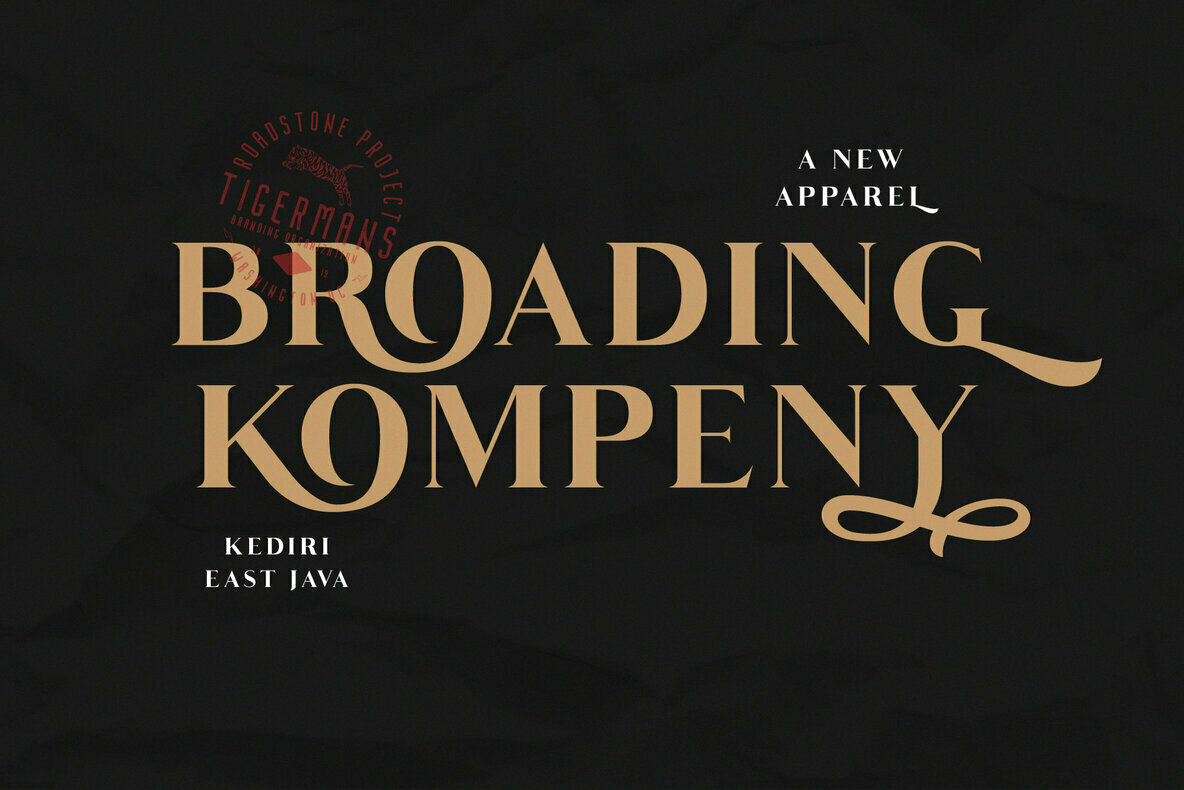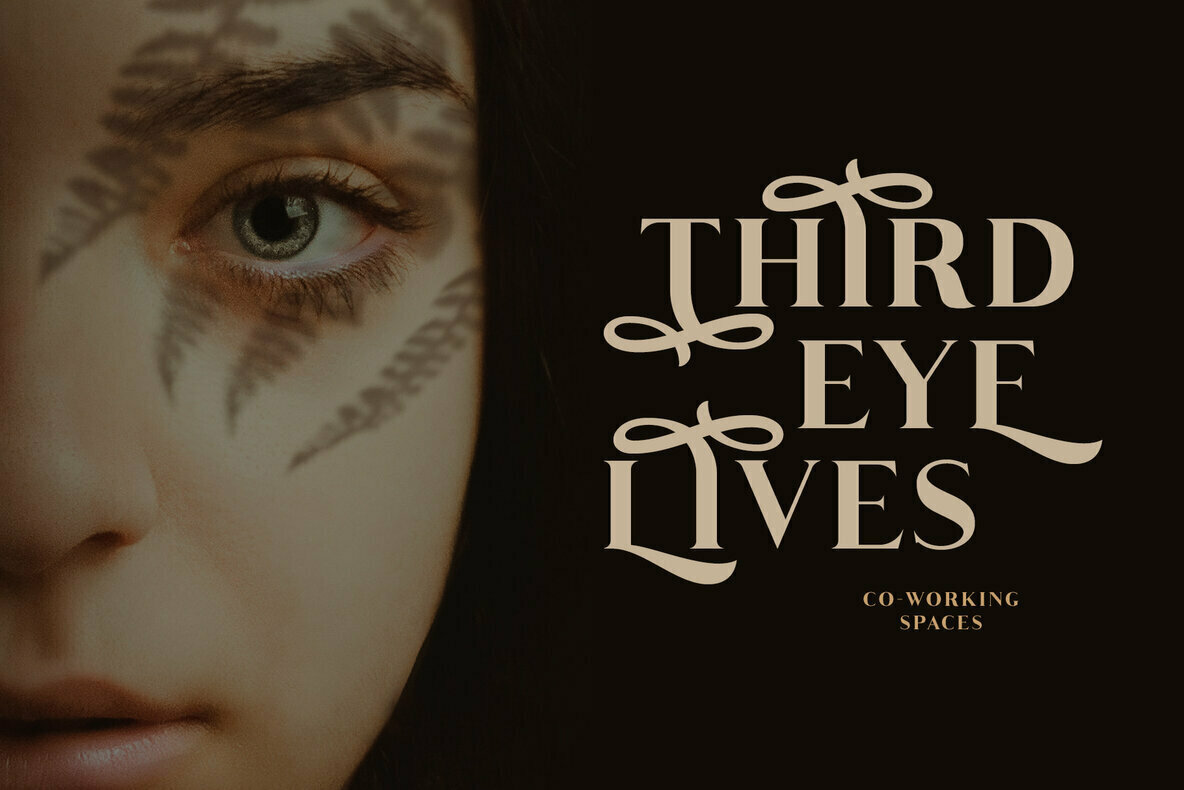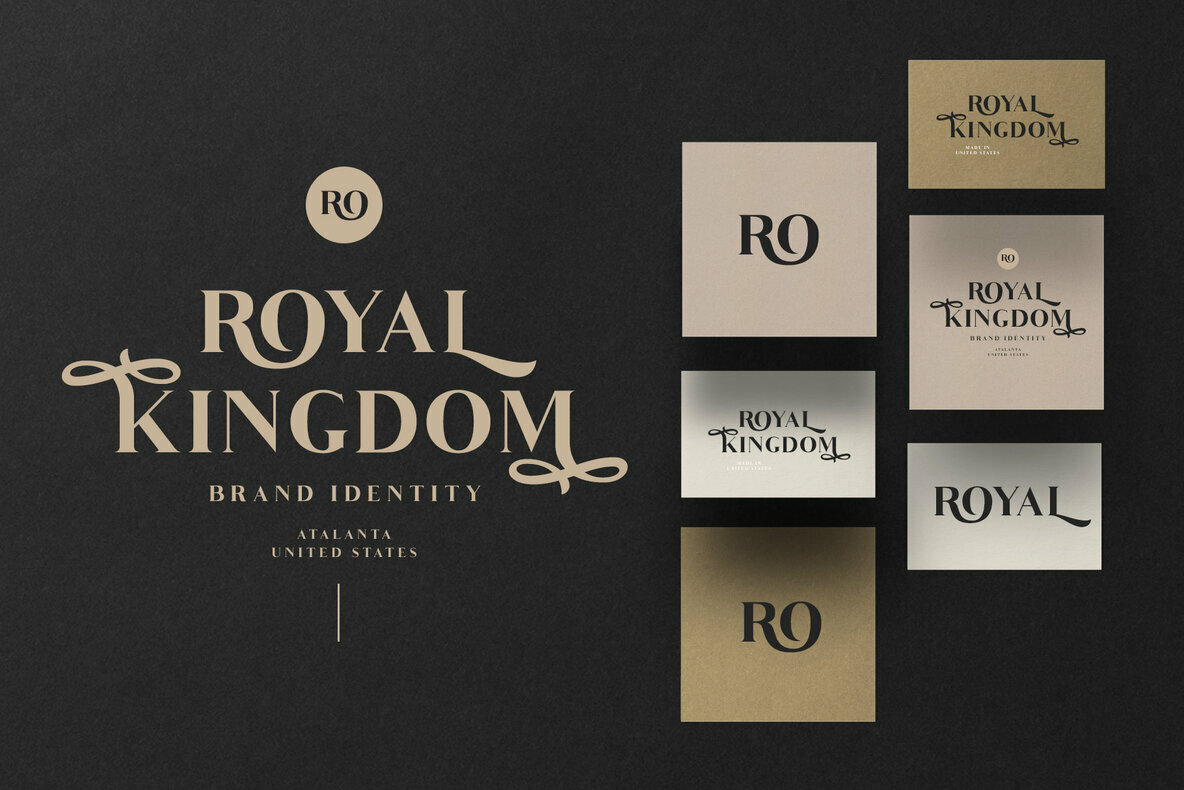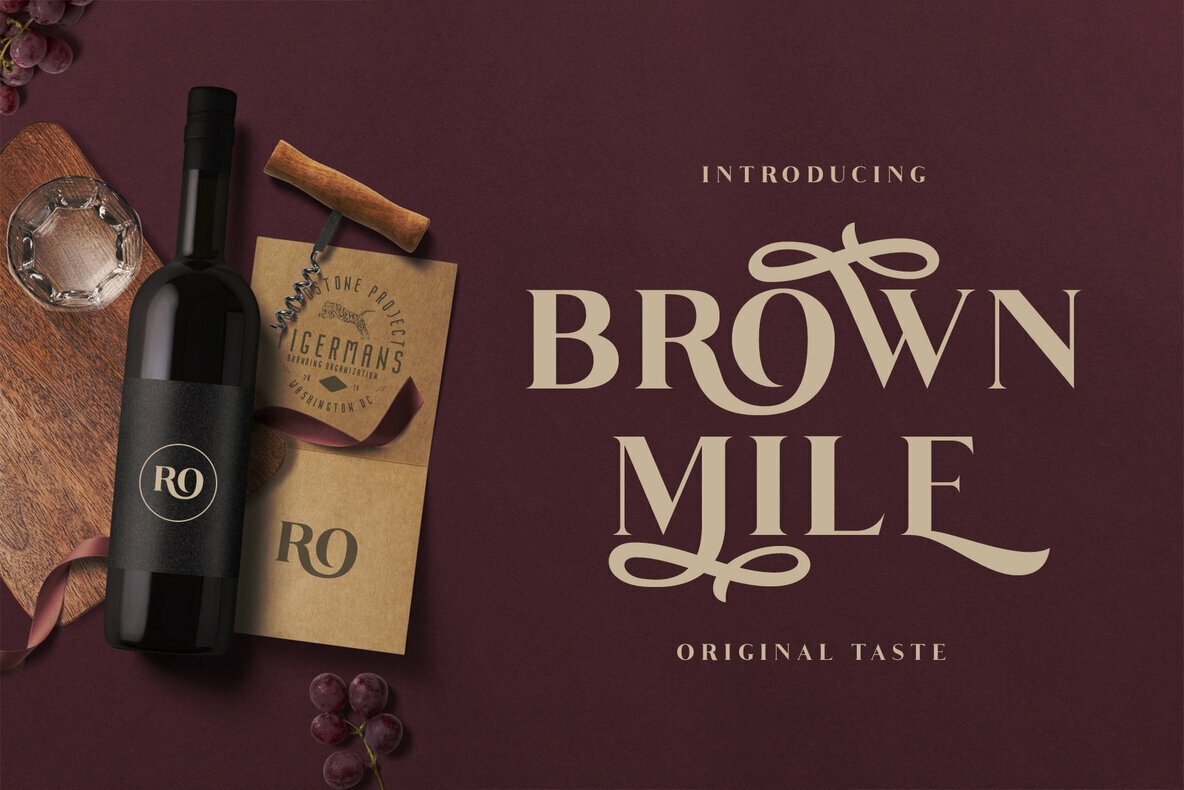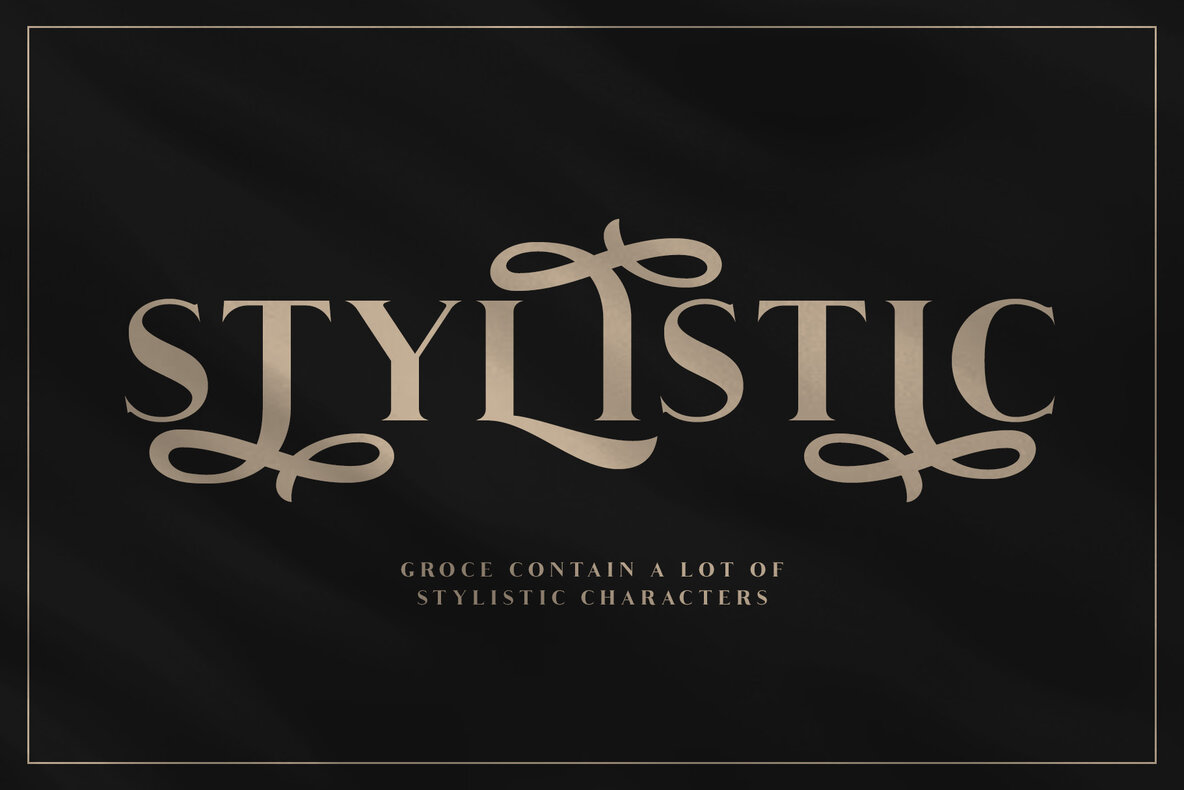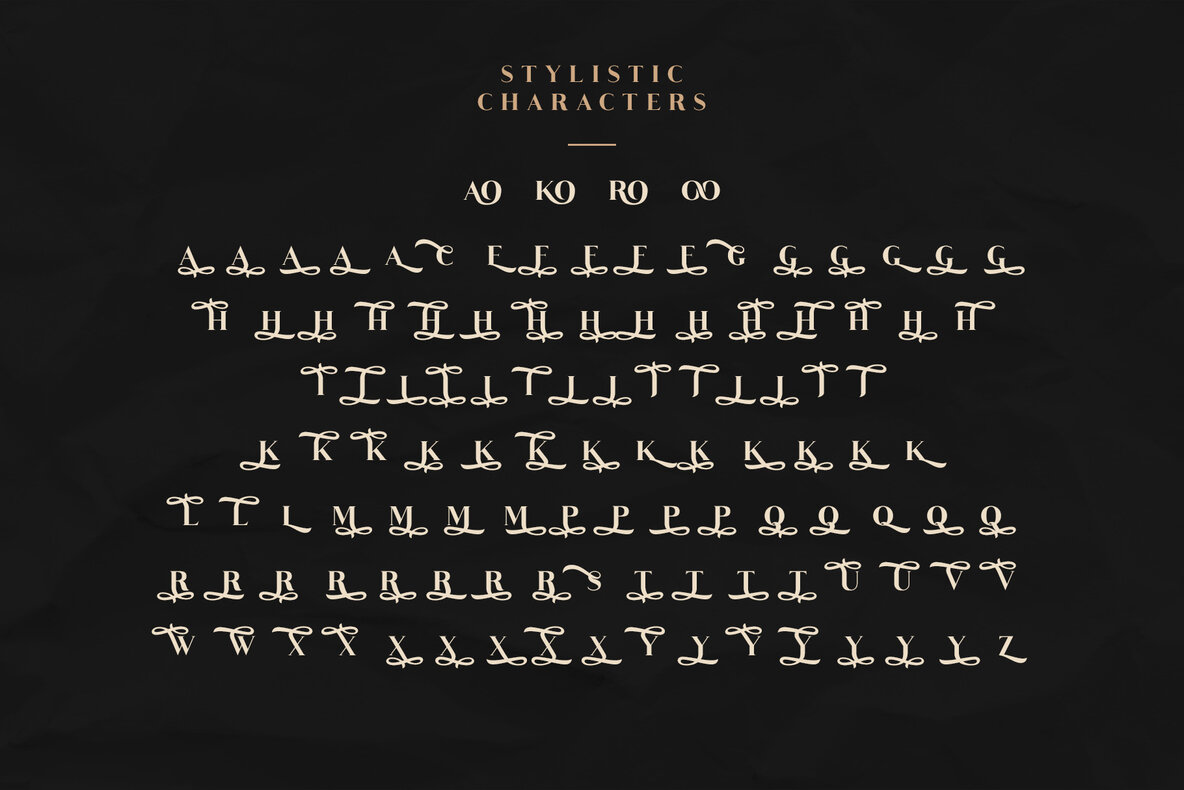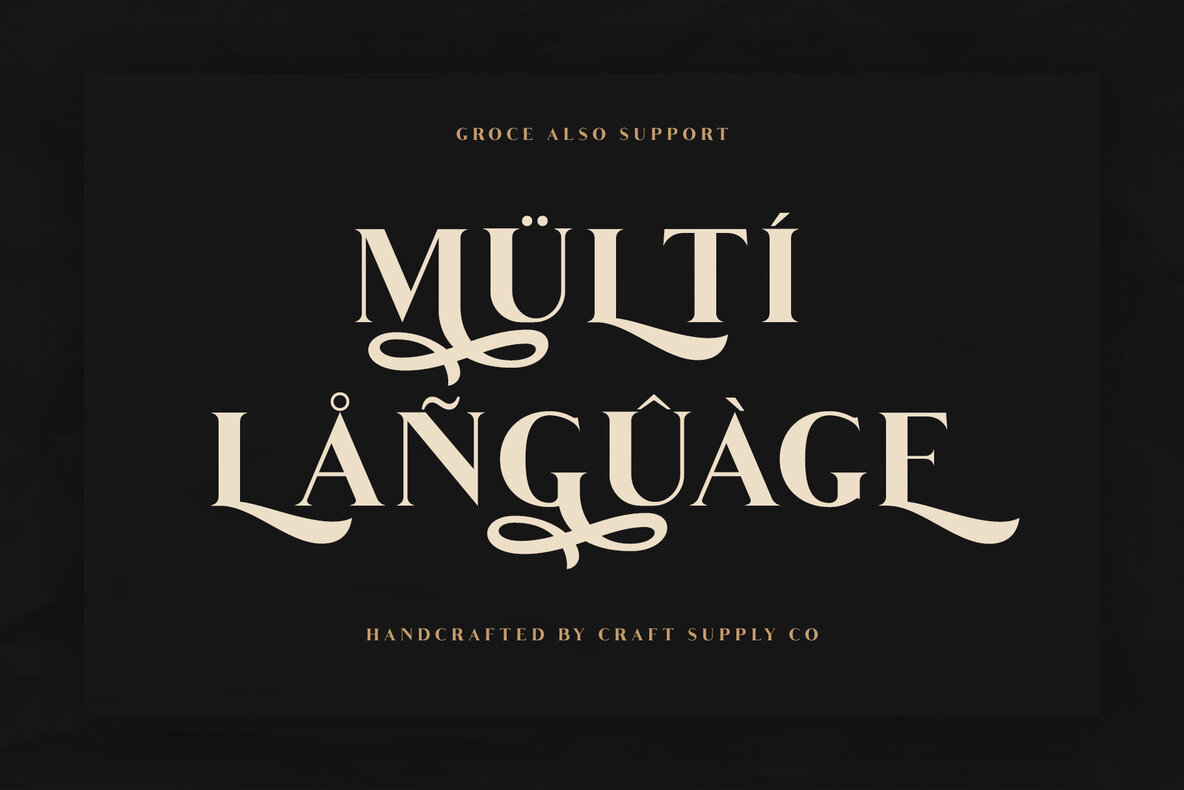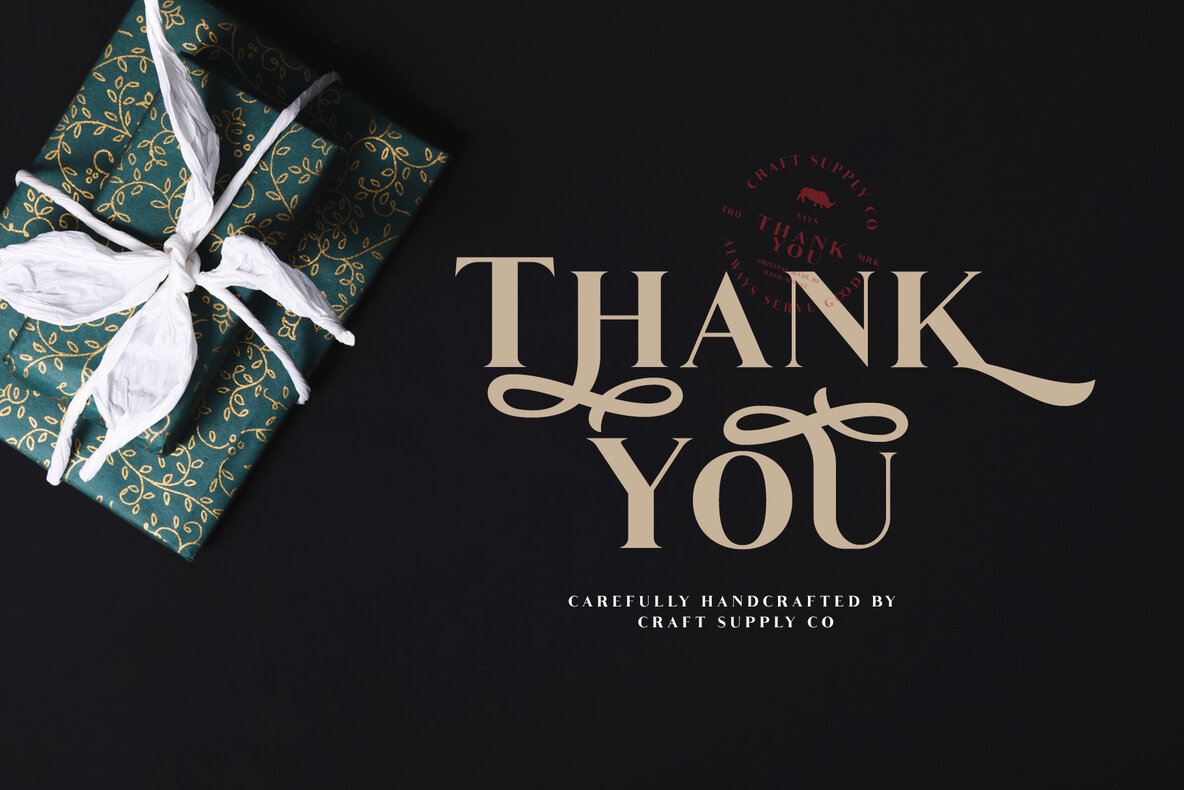
Groce Font
Groce Regular
Groce is an elegant serif font that offers a wide range of possibilities, especially for a lot of alternative. Groce offers an attractive tool for producing elegant decorative lettering, for example, for book covers or for posters and packaging.
- All Caps
- Stylistic Alternates
- Standard Ligatures & Custom Ligatures ( ao ko ro oo )
- Numerals & Punctuations (OpenType Standard)
- Accents (Multilingual characters) ÀÁÂÃÄÅÇÈÉÊËÌÍÎÏÐÑÒÓÔÕÖØÙÚÛÜÝßàáâãäåæçèéêëìíîïðñòóôõöøùúûüýÿ